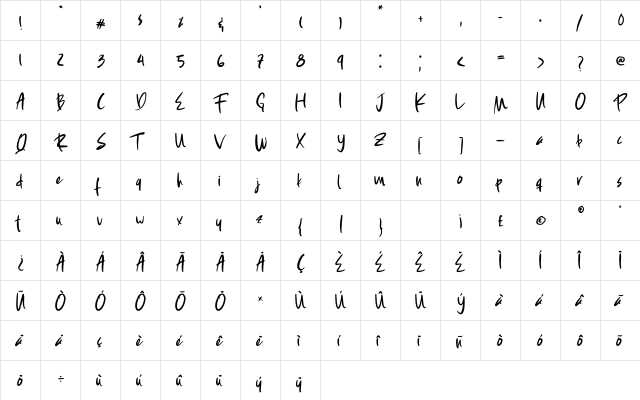
Esther Morgan Regular
| Designer | Colllab Studio |
Design Context for Esther Morgan Typeface
Esther Morgan is a composed and adaptable typeface that performs quietly and consistently across a wide range of design contexts.